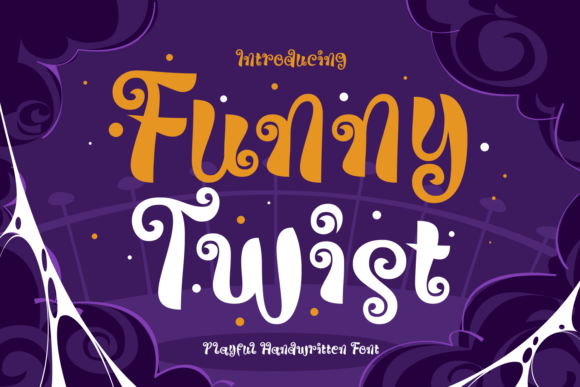
Introducing “Funny Twist Handwritten Fonts”, Your Perfect Companion for Any Creative Project!
Are you looking for a font that can add a touch of playful horror to your designs? Look no further than “Funny Twist Handwritten Fonts”! This uniquely crafted font carries the spirit of Halloween with eerie elegance, making it the ideal choice for any creative project. In this article, we’ll explore the features and benefits of this font, and how it can elevate your designs to the next level.
A Font that Embodies the Whimsical Whimsy of October Nights
“Funny Twist Handwritten Fonts” is designed to capture the essence of Halloween, with a spooky vibe that’s both eerie and elegant. This font is perfect for designers who want to add a touch of playful horror to their designs, without sacrificing style or readability. From the masculine boldness of Dracula Fonts to the mysterious charm of Ghost Fonts, this font packs a punch.
Key Features of Funny Twist Handwritten Fonts
- Unique and Handwritten Design: Each letter is carefully crafted to create a unique and handwritten look that’s both playful and elegant.
- Spooky Vibe: The font carries the spirit of Halloween with an eerie elegance that’s perfect for designers who want to add a touch of horror to their designs.
- Versatile: This font is suitable for a wide range of projects, from posters and t-shirt designs to quotes and book fonts.
- Cute and Playful: Despite its spooky vibe, the font also has a cute and playful side, making it perfect for designers who want to add a touch of whimsy to their designs.
A Font that Combines Different Styles
“Funny Twist Handwritten Fonts” is not just a single font, but a combination of different styles that come together to create a unique and versatile font. From Starry Night Fonts and Bat Fonts that bring nocturnal allure to your projects, to Holiday Fonts and Spooky Fonts that evoke the thrill of festive celebrations, this font has it all.
Different Font Styles to Suit Your Needs
- Dracula Fonts: Add a touch of masculine boldness to your designs with these strong and elegant fonts.
- Ghost Fonts: Create a mysterious and charming atmosphere with these ghostly fonts.
- Starry Night Fonts: Bring a touch of magic to your designs with these celestial fonts.
- Bat Fonts: Add a touch of nocturnal allure to your designs with these bat-inspired fonts.
- Holiday Fonts: Celebrate the festive season with these holiday-themed fonts.
- Spooky Fonts: Create a spooky atmosphere with these eerie and elegant fonts.
Perfect for Various Products
“Funny Twist Handwritten Fonts” is not just limited to posters and designs, but can also be used for a wide range of products, including:
Products that Can Benefit from Funny Twist Handwritten Fonts
- Quotes: Add a touch of elegance and whimsy to your quotes with this font.
- T-Shirt Designs: Create unique and eye-catching t-shirt designs with this font.
- Posters: Add a touch of playful horror to your posters with this font.
- Book Fonts: Bring stories to life with excellent readability and style with this font.
Cuteness and Horror Combined
One of the unique features of “Funny Twist Handwritten Fonts” is its ability to combine cuteness and horror in a single font. This font is perfect for designers who want to add a touch of whimsy to their designs, without sacrificing the spooky vibe.
Cute Fonts and Horror Fonts Combined
- Cute Fonts: Add a pinch of sweetness to your designs with these cute fonts.
- Witch Fonts: Create a spooky atmosphere with these witch-inspired fonts.
- Skull Fonts: Add a touch of horror to your designs with these skull-inspired fonts.
- Cemetery Fonts: Create a spooky atmosphere with these cemetery-inspired fonts.
- Skeleton Fonts: Add a touch of horror to your designs with these skeleton-inspired fonts.
- Gothic Fonts: Create a mysterious and elegant atmosphere with these gothic fonts.
- Graveyard Fonts: Add a touch of horror to your designs with these graveyard-inspired fonts.
- Festival Fonts: Celebrate the festive season with these festival-themed fonts.
Step into the Realm of Fantasy
“Funny Twist Handwritten Fonts” is not just a font, but a gateway to a world of fantasy and imagination. With this font, you can create designs that transport your audience to a world of magic and wonder.
Fantasy Fonts to Suit Your Needs
- Fantasy Fonts: Create a magical atmosphere with these fantasy-inspired fonts.
- Jack Fonts: Add a touch of classic charm to your designs with these jack-inspired fonts.
- Carved Fonts: Create a unique and elegant atmosphere with these carved fonts.
| Font Name | Funny Twist Font |
In conclusion, “Funny Twist Handwritten Fonts” is the perfect companion for any creative project. With its unique and handwritten design, spooky vibe, and versatility, this font is sure to elevate your designs to the next level. Whether you’re looking to add a touch of playful horror to your designs, or simply want to create a unique and elegant atmosphere, this font is the perfect choice.